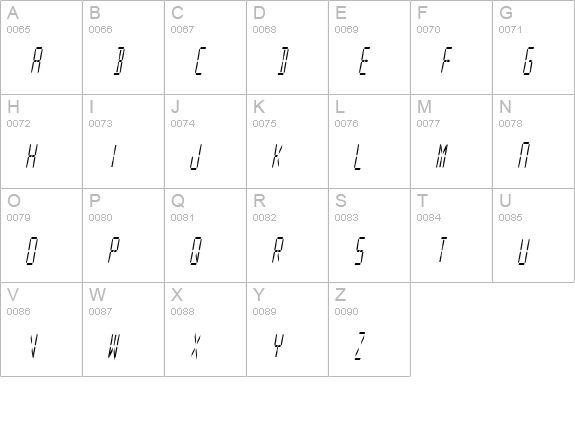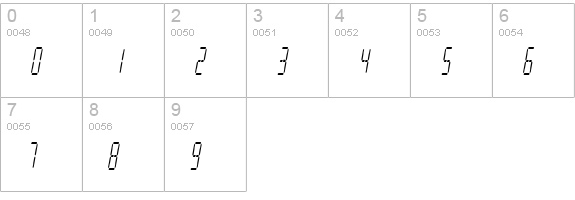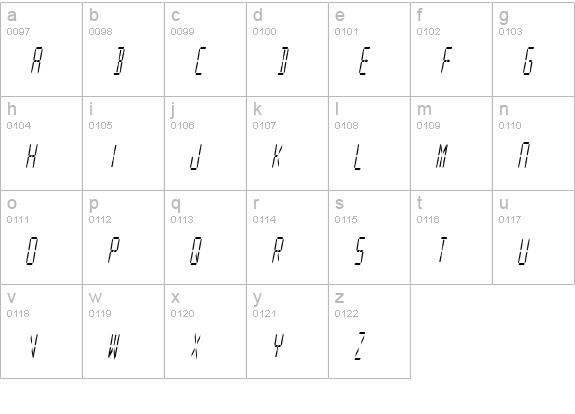
Digital Readout Condensed is a distinctive, condensed-width variant in the Digital typeface family \xE2\x80\x94 well suited to design and typography projects.
Digital Readout Condensed is a sleek and modern font that is perfect for giving your designs a high-tech and futuristic look. With its condensed style and digital-inspired aesthetic, this font is ideal for creating eye-catching headers, titles, and logos. The sharp lines and geometric shapes of Digital Readout Condensed make it a versatile choice for a wide range of projects, from technology websites to sci-fi posters. Best of all, Digital Readout Condensed is available for free download at FontsMarket.com. This means you can easily add this stylish font to your collection without any cost. Don't miss out on the opportunity to enhance your designs with the bold and dynamic look of Digital Readout Condensed - download it today and take your projects to the next level!